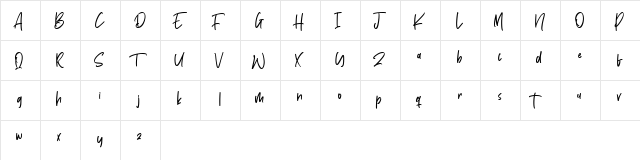
Heathers Free Regular
| Foundry | MaulanaCreative |
| Designer | MaulanaCreative |
Design Context for Heathers Free Typeface
Heathers Free is a composed and adaptable typeface that performs quietly and consistently across a wide range of design contexts.